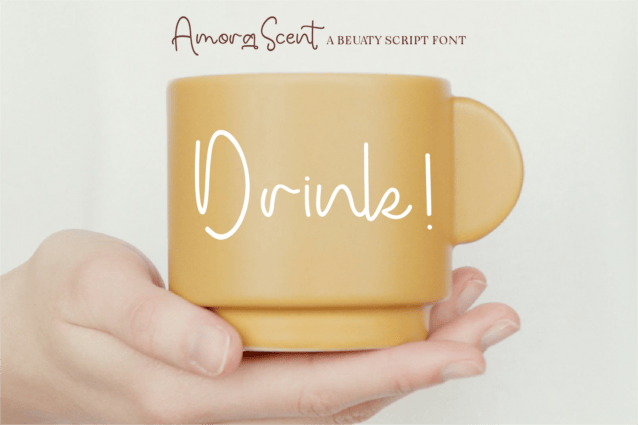
Amora Scent Handwritten Font
Amora Scent Handwritten Font is a beauty-inspired script font that embodies grace and elegance in every stroke. Designed with a feminine touch, it features fluid, interconnected letters that radiate charm and sophistication. Perfect for personal branding, wedding designs, beauty product packaging, and heartfelt invitations, Amora Scent offers a harmonious blend of style and readability. Elevate your projects with this versatile and timeless font that makes every message feel personal and heartfelt.